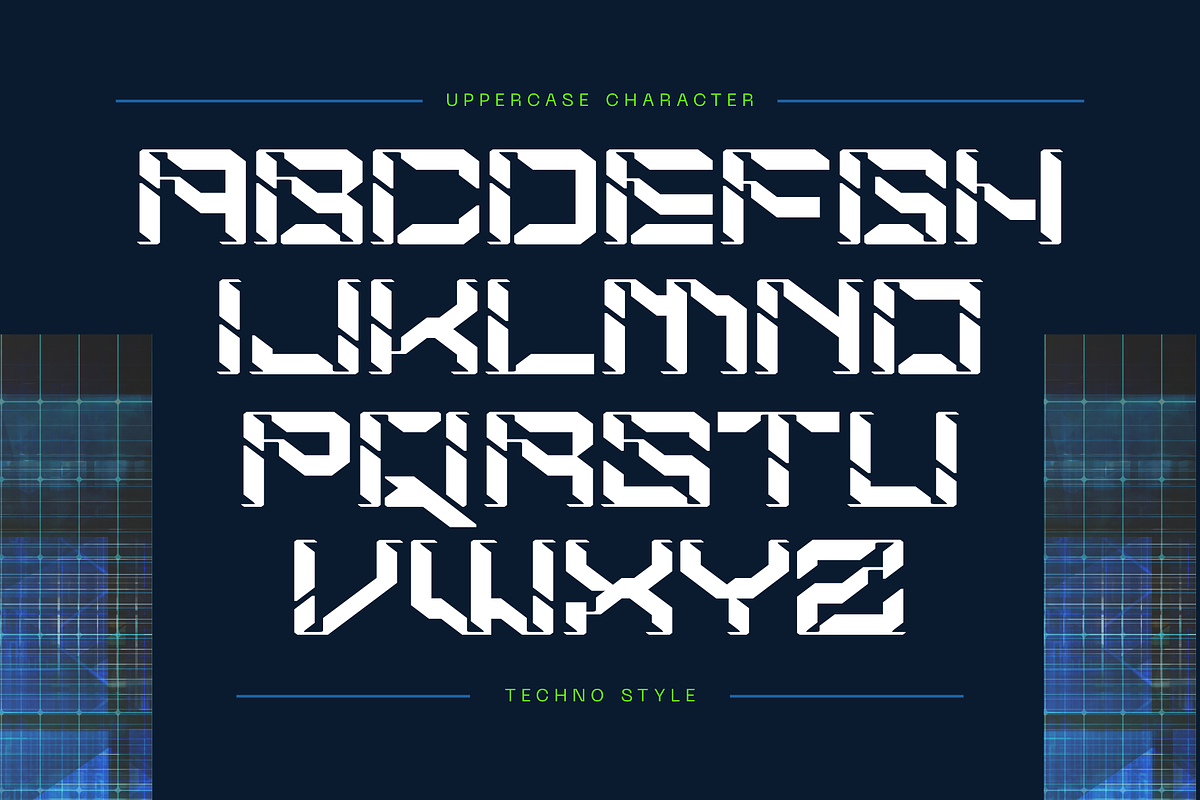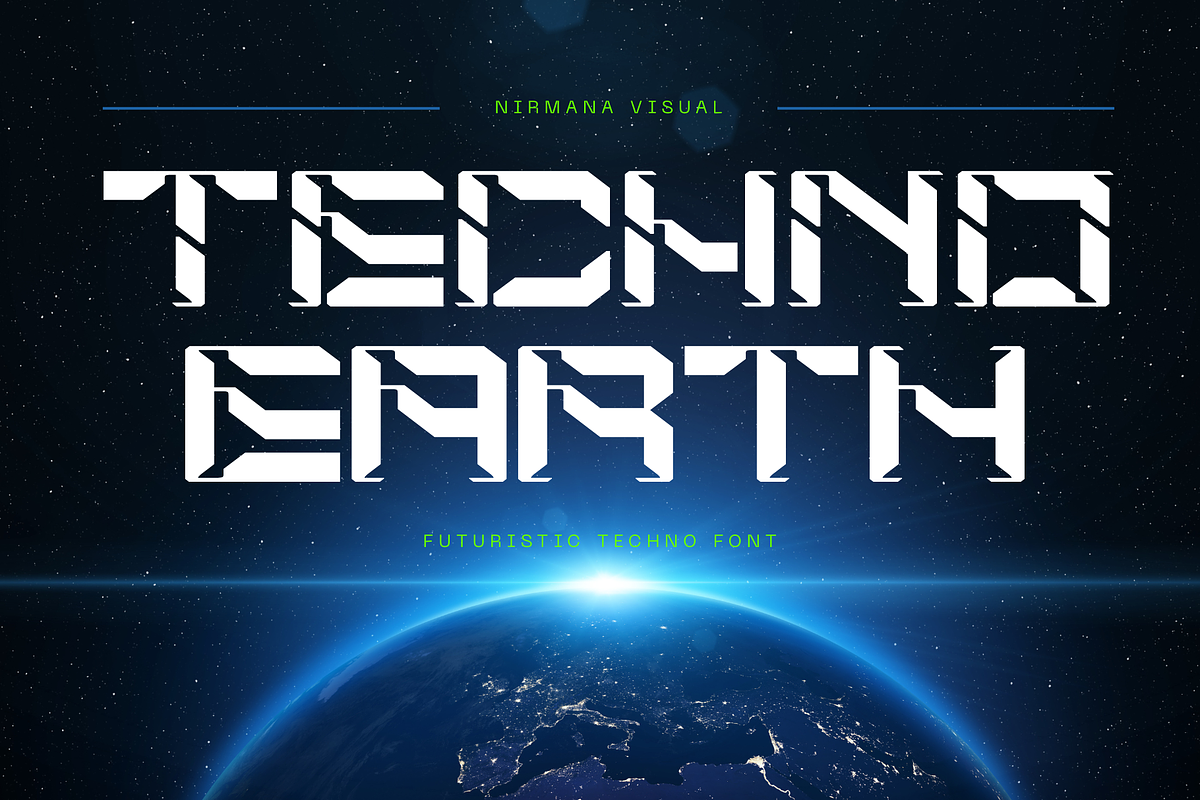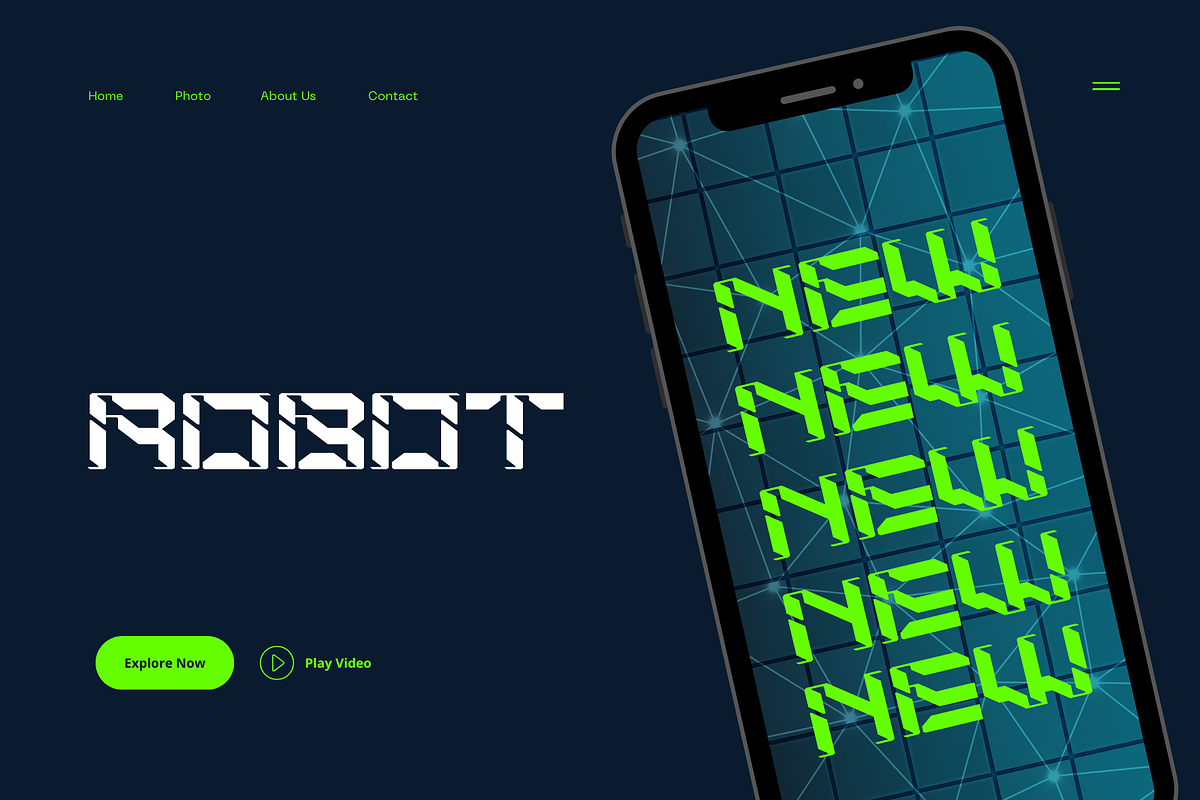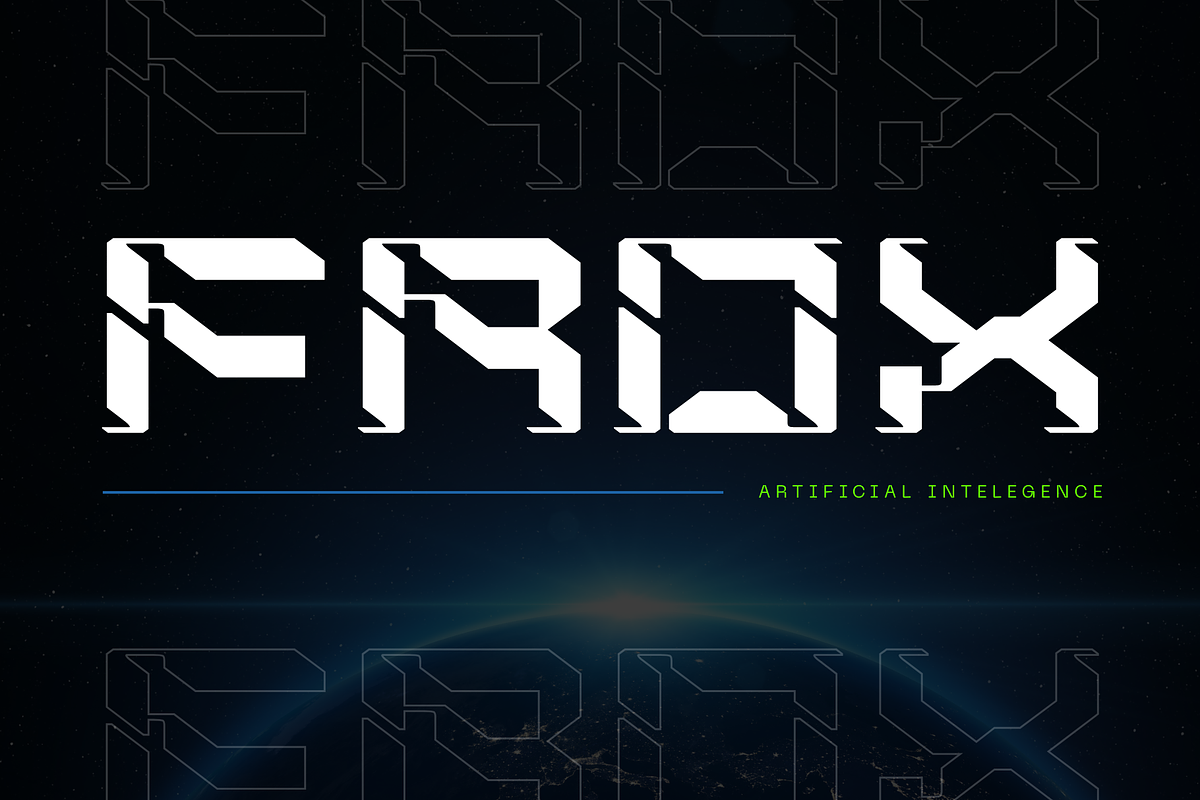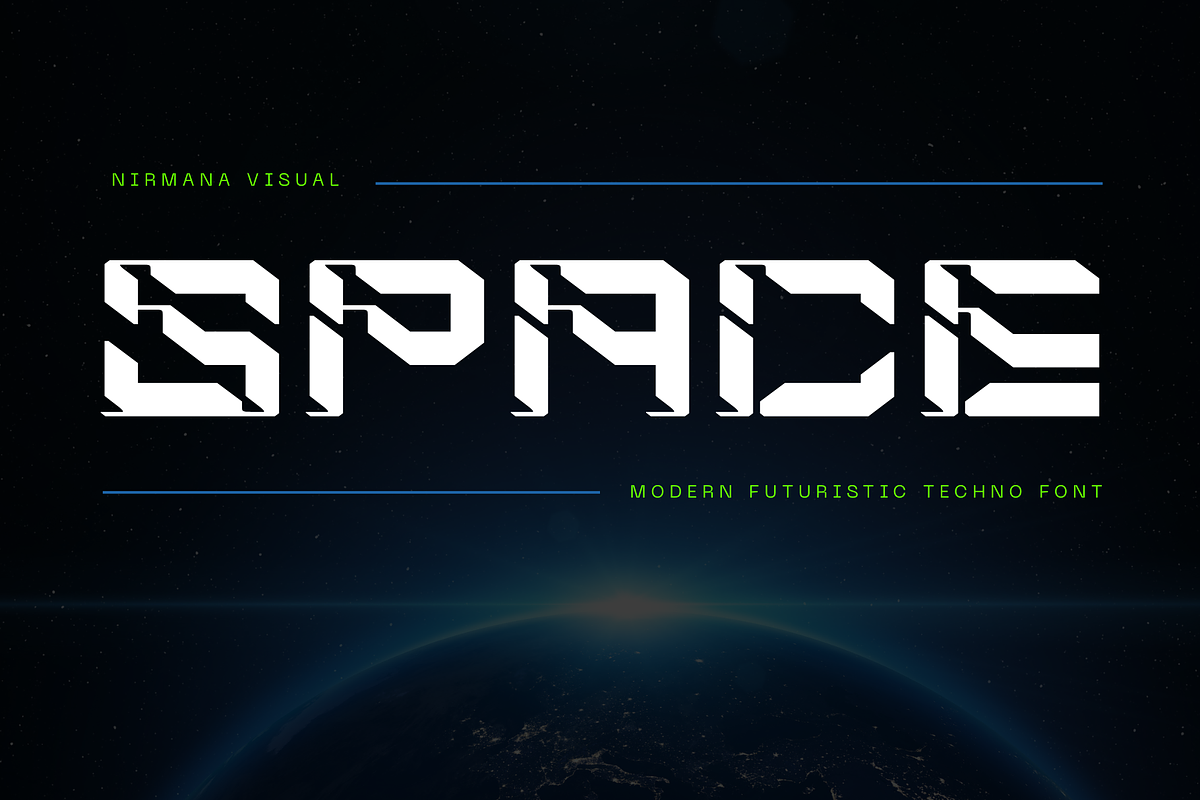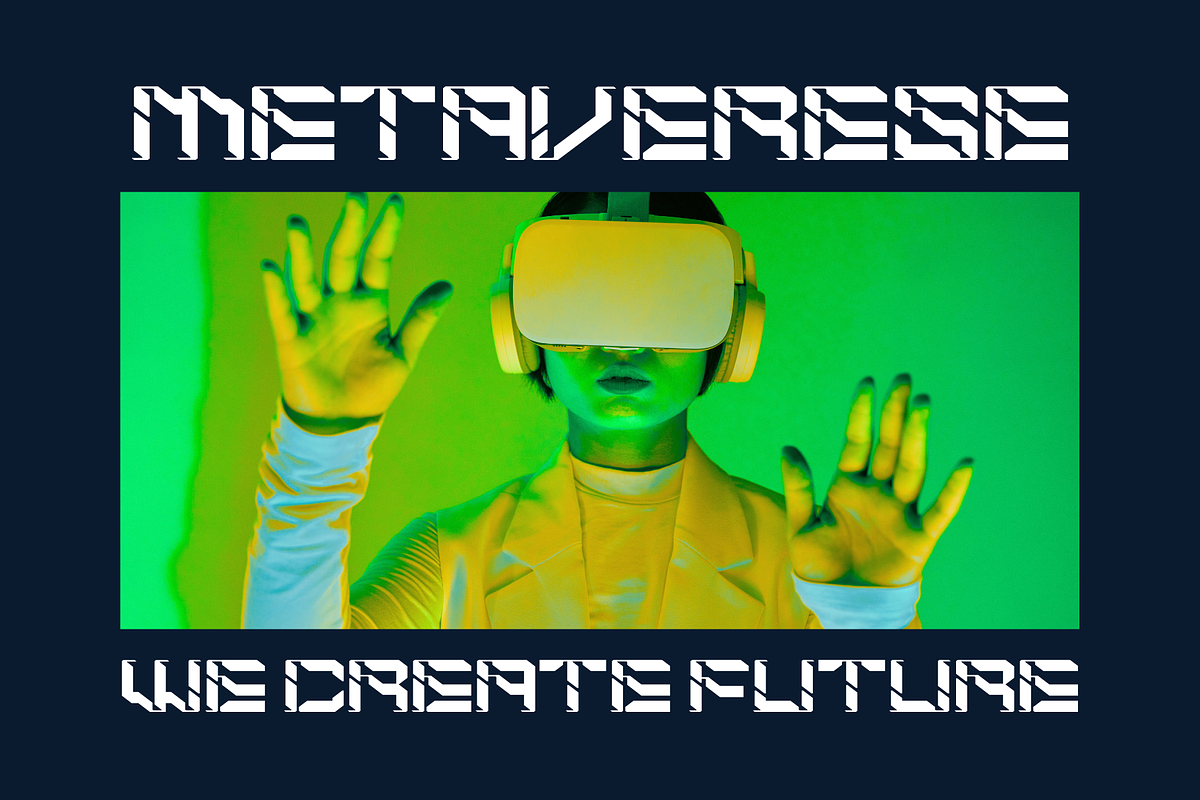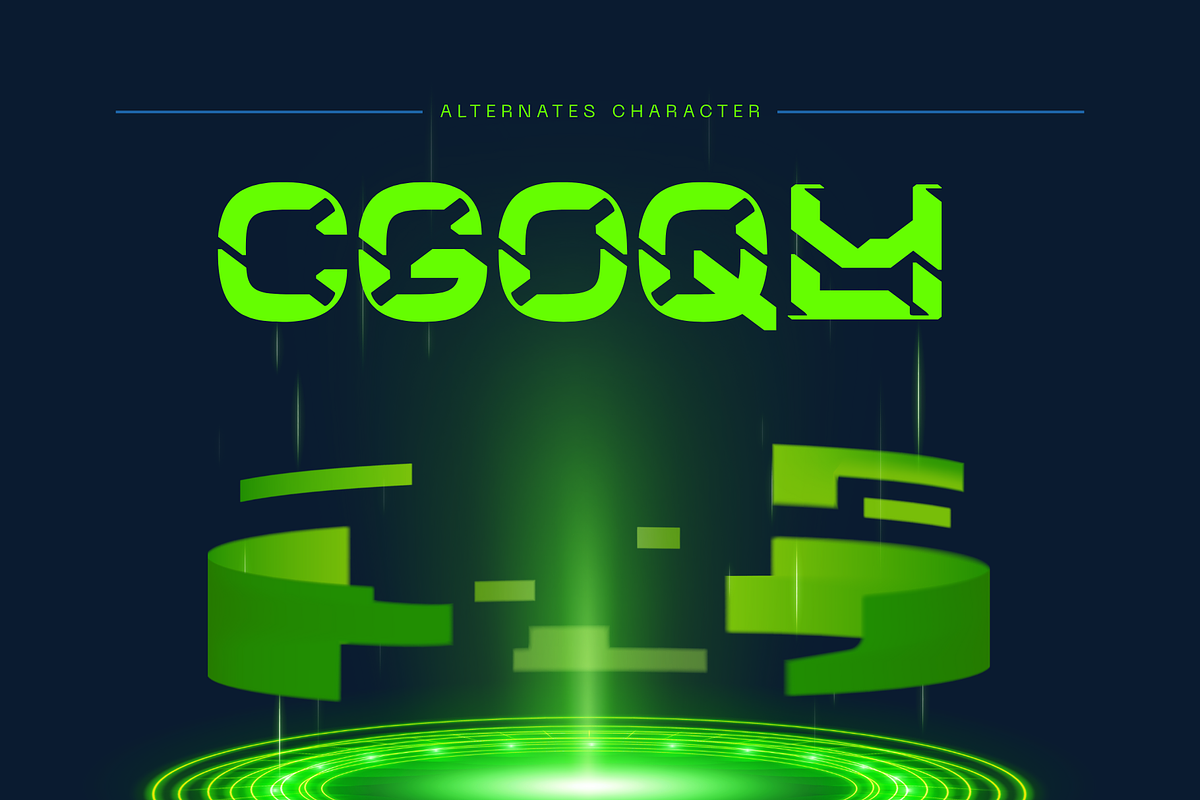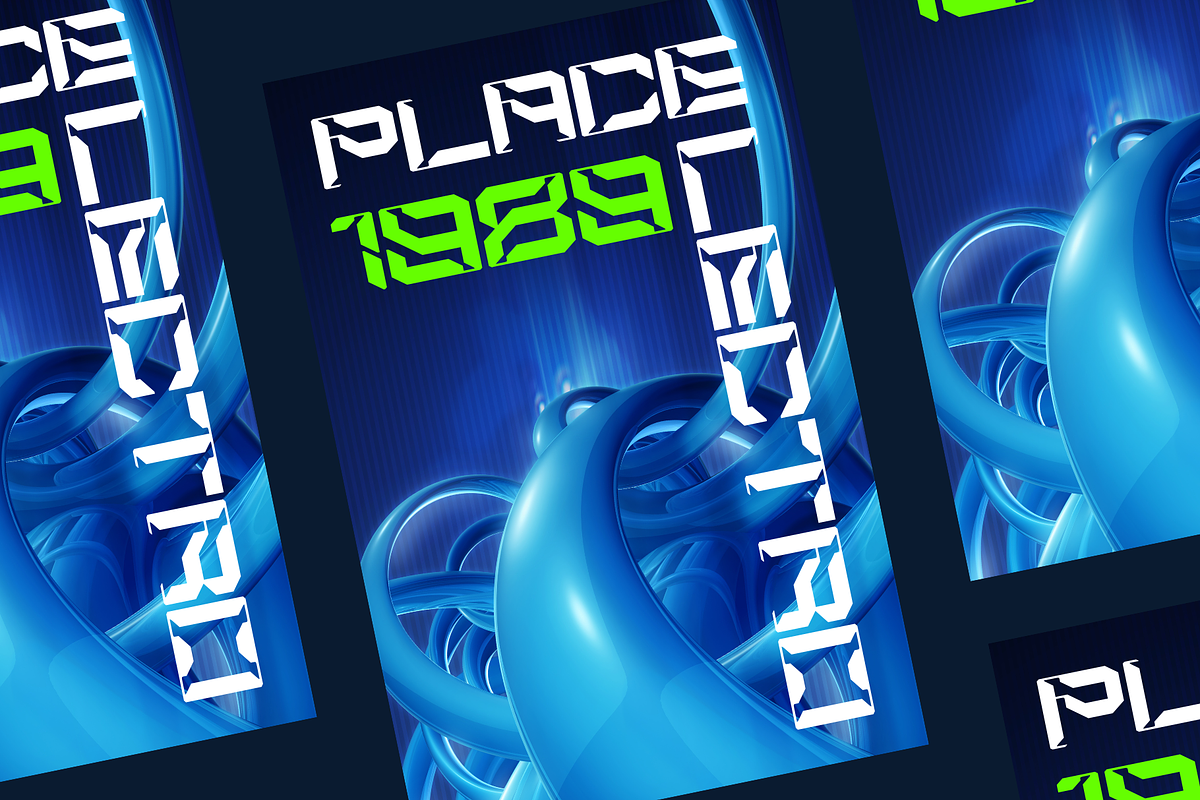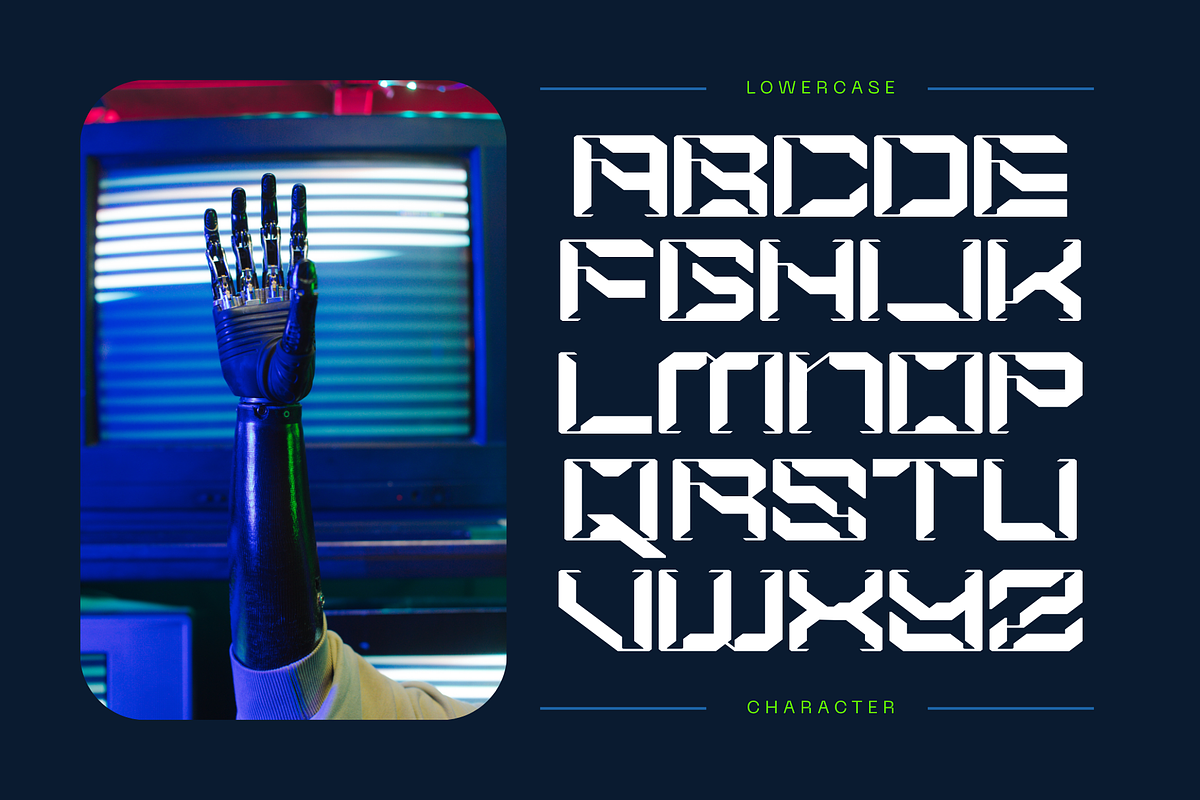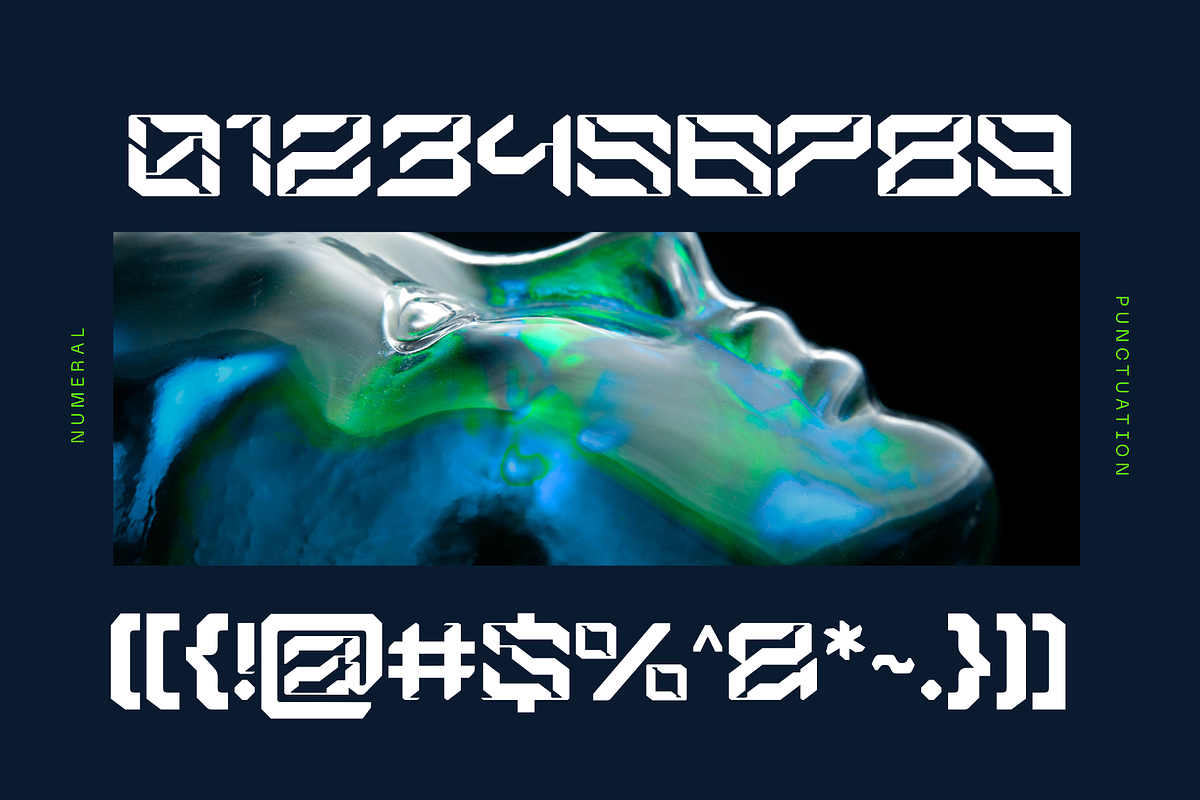
Modern Space - Techno Logo Font
Modern Space offers beautiful typographic harmony for a diversity of design projects, including logos & branding, social media posts, advertisements & product designs.